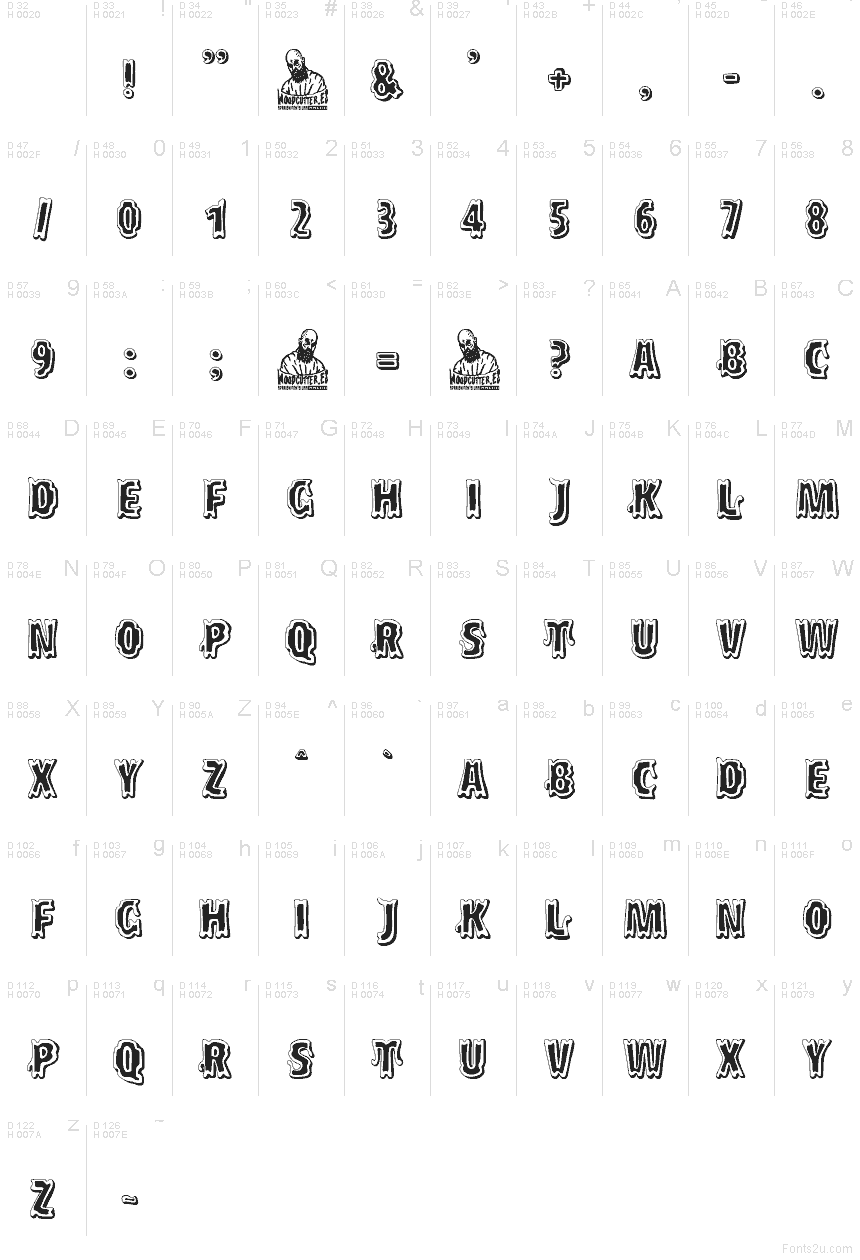
Desesperado
Desesperado by Woodcutter Manero is a free Mexican western caps font with the rough swagger of old cantina signs and pulp frontier posters. The letters feel carved and weather-beaten, with chunky silhouettes, wavering outlines, and a bold inner contour that gives the whole font a dusty, layered echo.
It makes sense on tequila labels, mariachi or rodeo posters, food truck branding, festival flyers, and title cards that want a border-town mood rather than a polished studio finish. As a free font, it also suits short headlines, monograms, and cover lines, because those heavy, irregular caps carry plenty of character before you set very many letters.